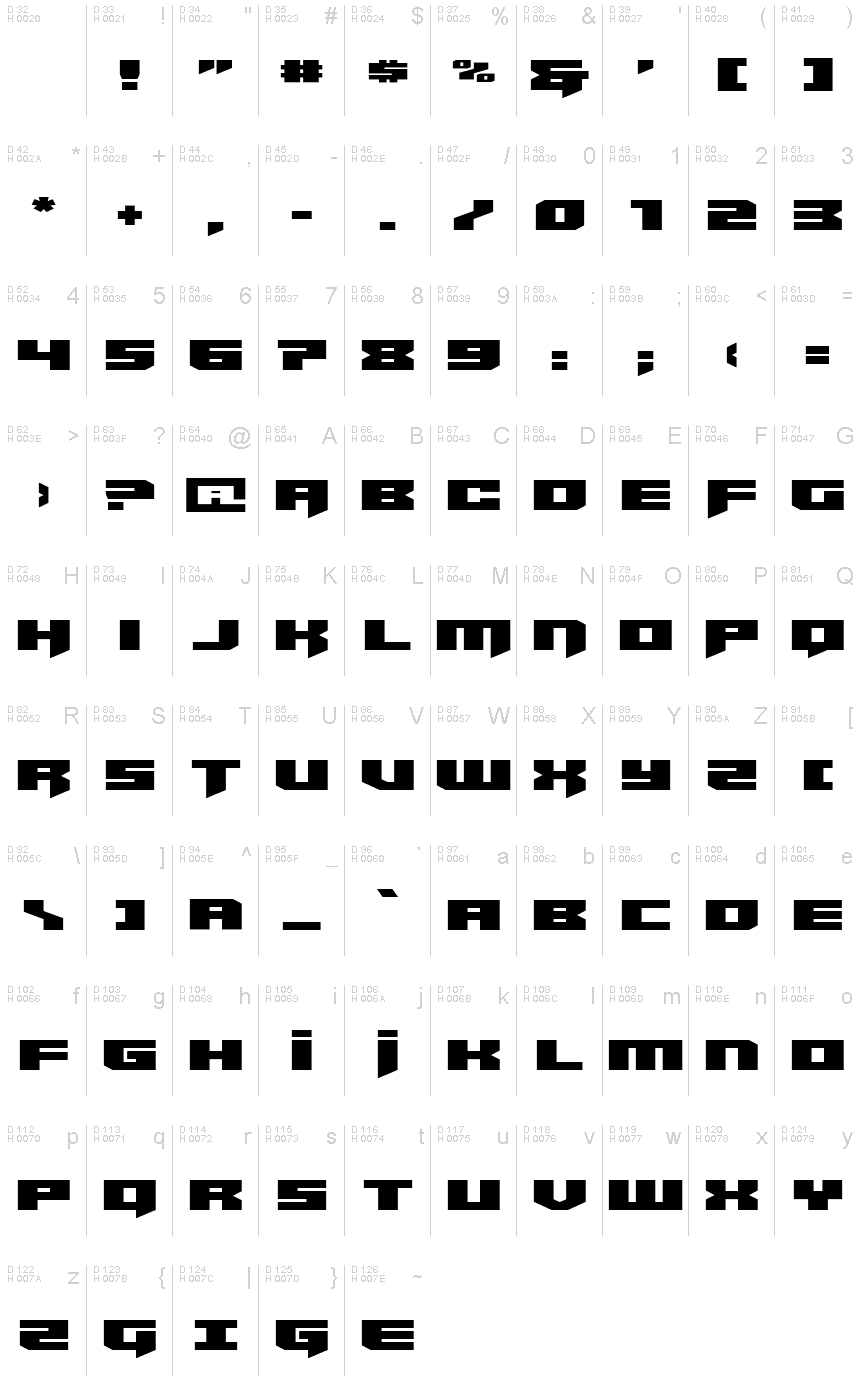
Bridge OFFicer Straight Expand
Bridge Officer Straight Expand brings a commanding presence to the Bridge Officer font family with its extra-bold weight and extra-expanded width. Crafted by Iconian Fonts, this display typeface boasts a techno style that encapsulates modernity and strength. Its assertive lines and generous spacing deliver an unmistakable visual impact, making it an ideal choice for projects that require a futuristic or authoritative touch.
The sleek contours and expansive letterforms of Bridge Officer Straight Expand exude confidence, perfect for titles, headers, or any application where you want your message to stand out with clarity and conviction. The distinct appearance of this font lends itself effortlessly to creative endeavors in the realms of science fiction, gaming interfaces, tech startups branding, or any digital platform seeking a touch of edgy sophistication.
Whether employed in bold marketing materials or as a striking complement to innovative designs, Bridge Officer Straight Expand offers designers a versatile tool imbued with the spirit of contemporary aesthetics.
The sleek contours and expansive letterforms of Bridge Officer Straight Expand exude confidence, perfect for titles, headers, or any application where you want your message to stand out with clarity and conviction. The distinct appearance of this font lends itself effortlessly to creative endeavors in the realms of science fiction, gaming interfaces, tech startups branding, or any digital platform seeking a touch of edgy sophistication.
Whether employed in bold marketing materials or as a striking complement to innovative designs, Bridge Officer Straight Expand offers designers a versatile tool imbued with the spirit of contemporary aesthetics.